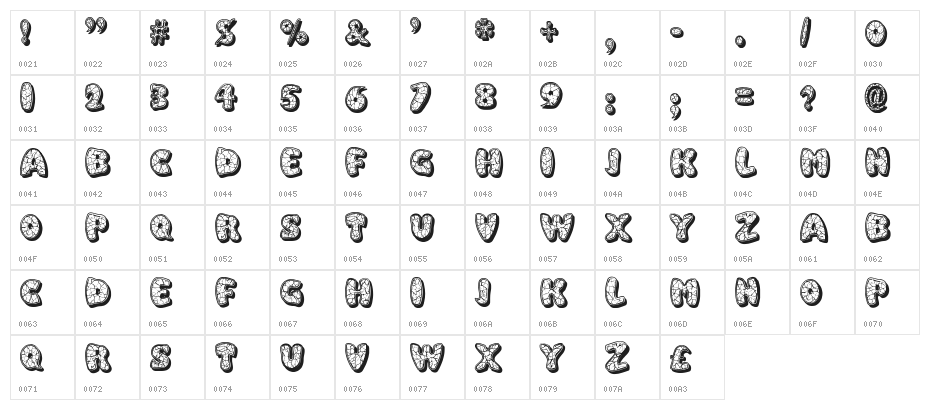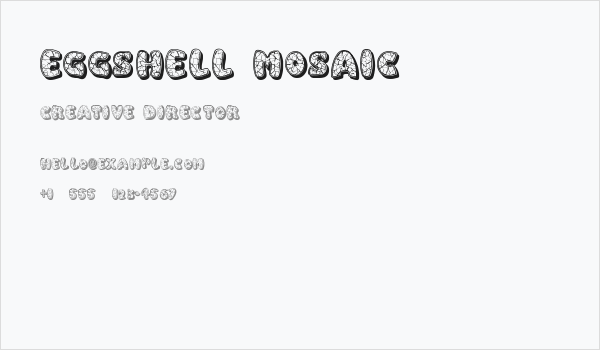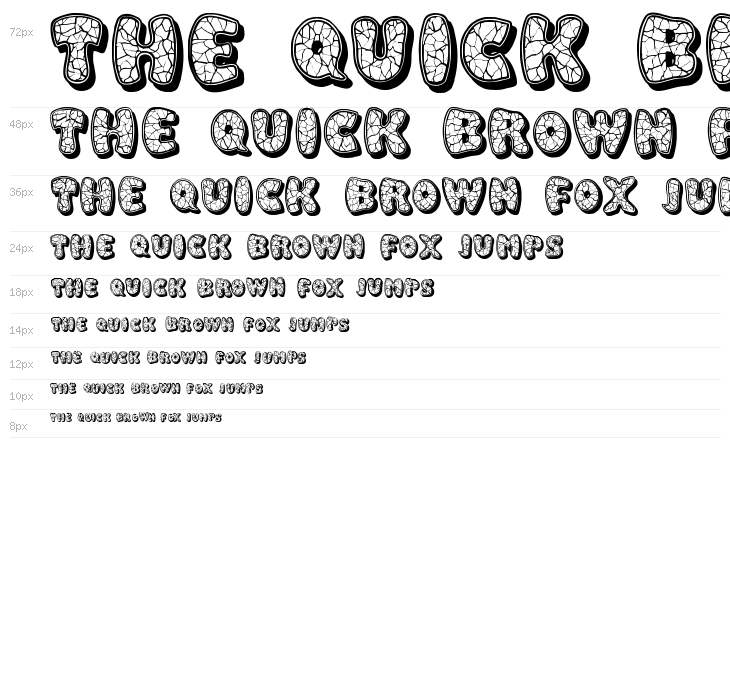
Eggshell Mosaic Font
Eggshell Mosaic Description
This font features a unique mosaic pattern reminiscent of cracked eggshells, giving it a textured and artistic appearance. The characters are bold and rounded, with each letter and number filled with irregular, web-like lines that create a sense of depth and complexity. The overall design is playful and eye-catching, making it suitable for creative and informal projects. The font maintains consistency across uppercase, lowercase, and numerical characters, ensuring readability while adding a decorative flair. The special characters are equally detailed, enhancing the font's cohesive look.
| Proposed Projects | Ideal for children's book covers, creative posters, art-themed branding, and playful invitations. |